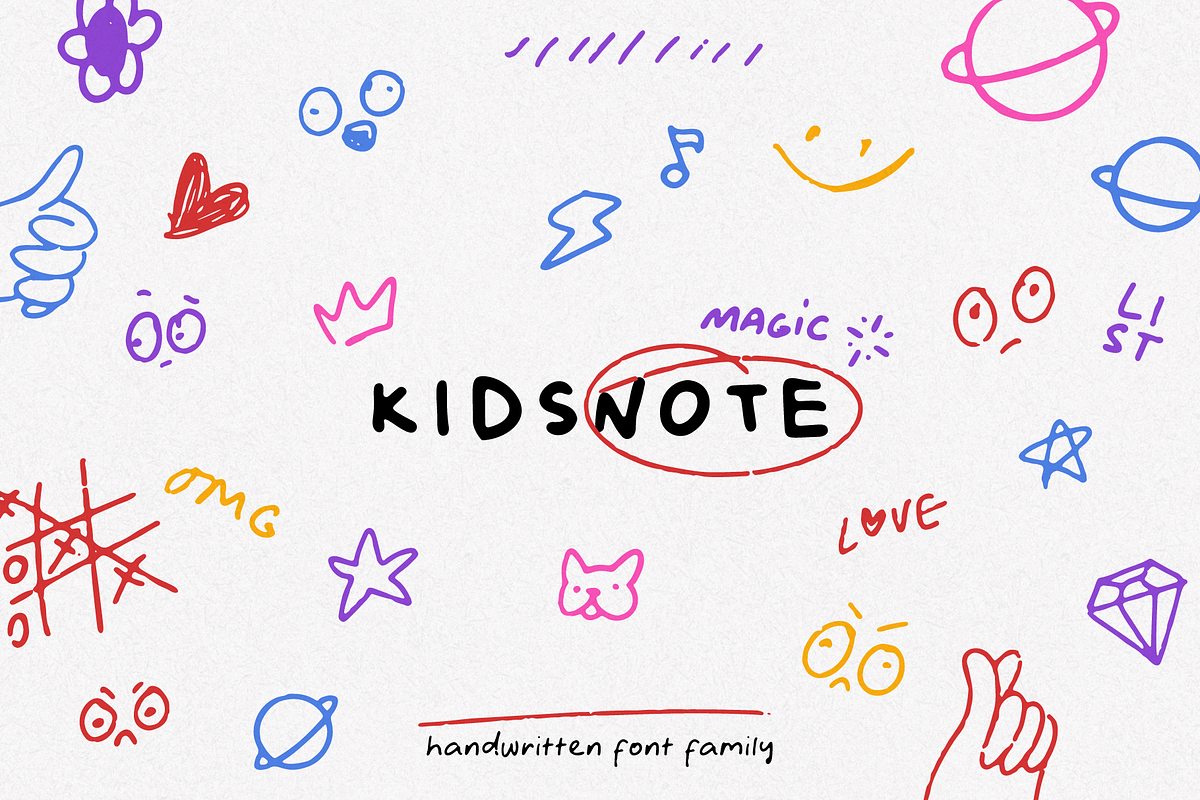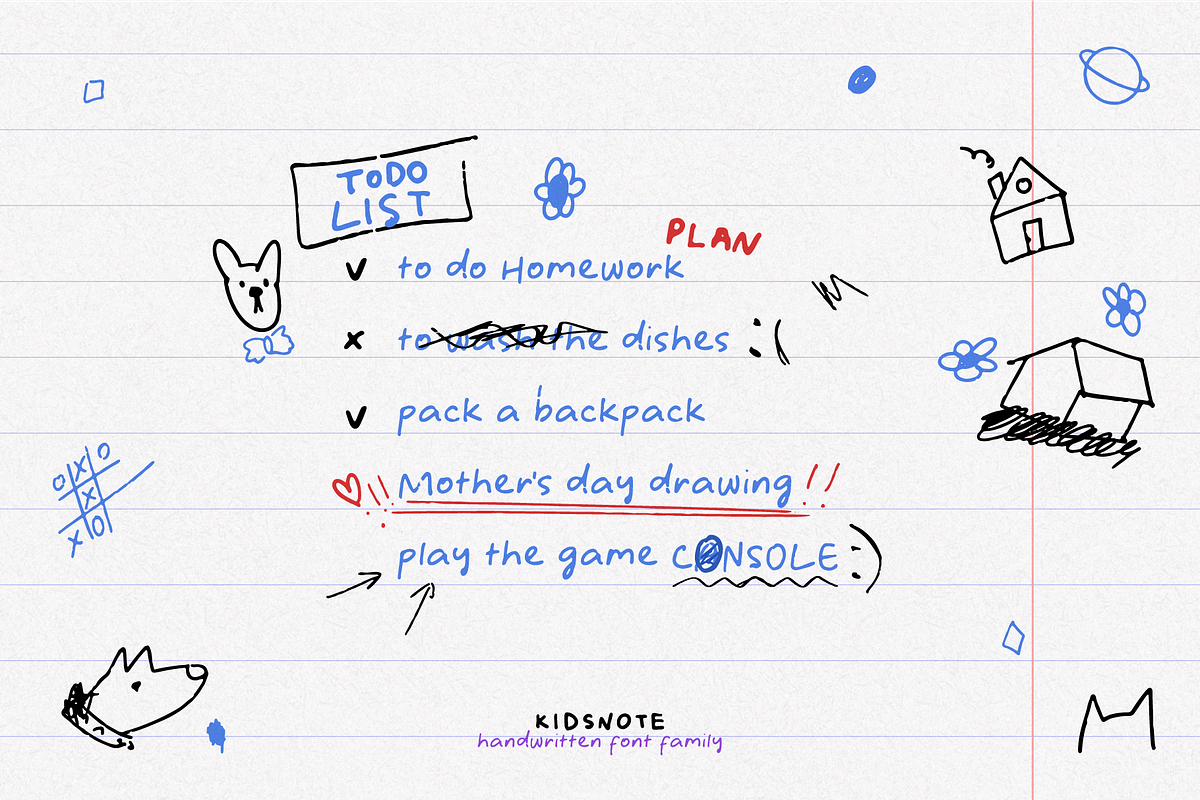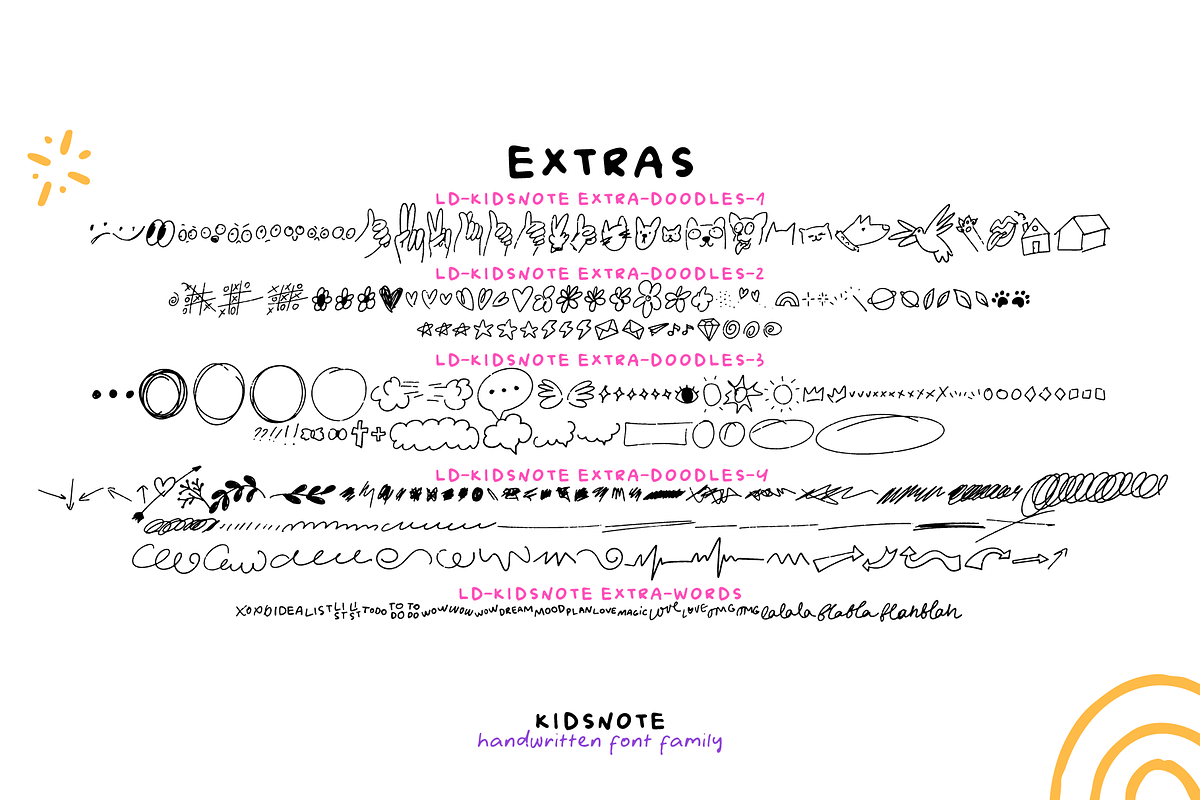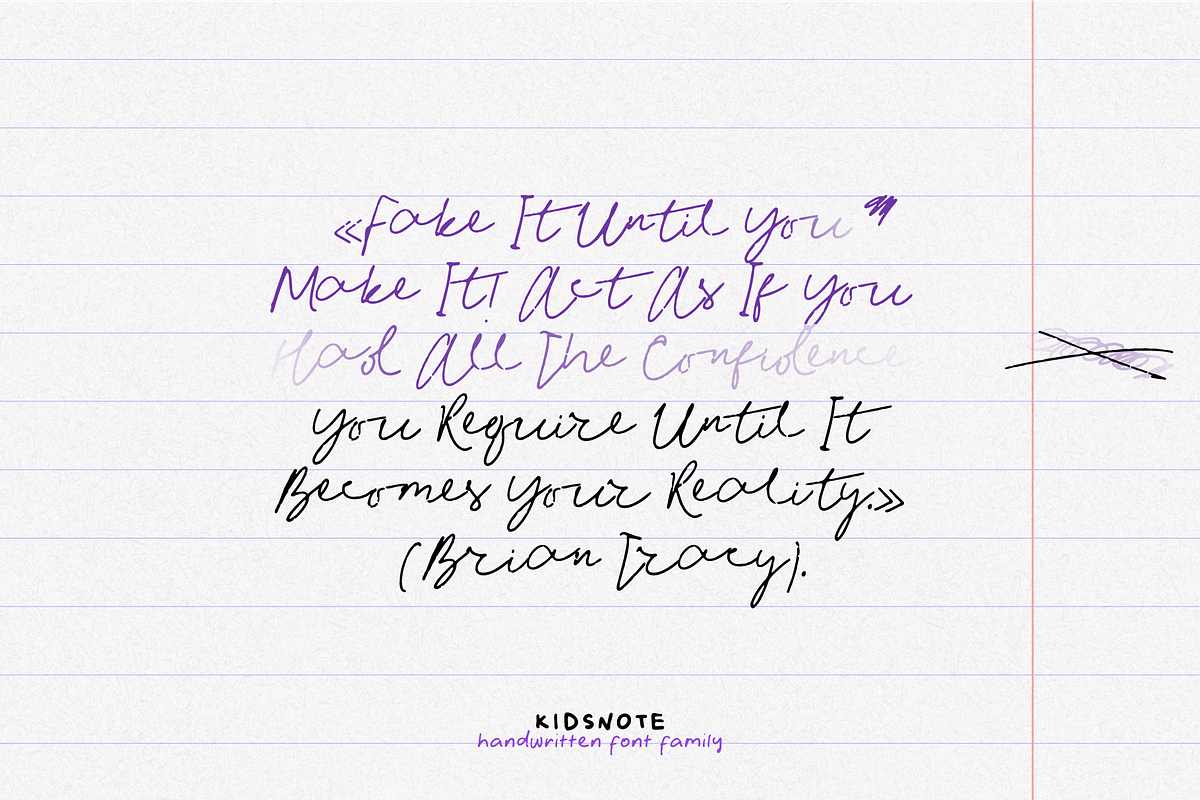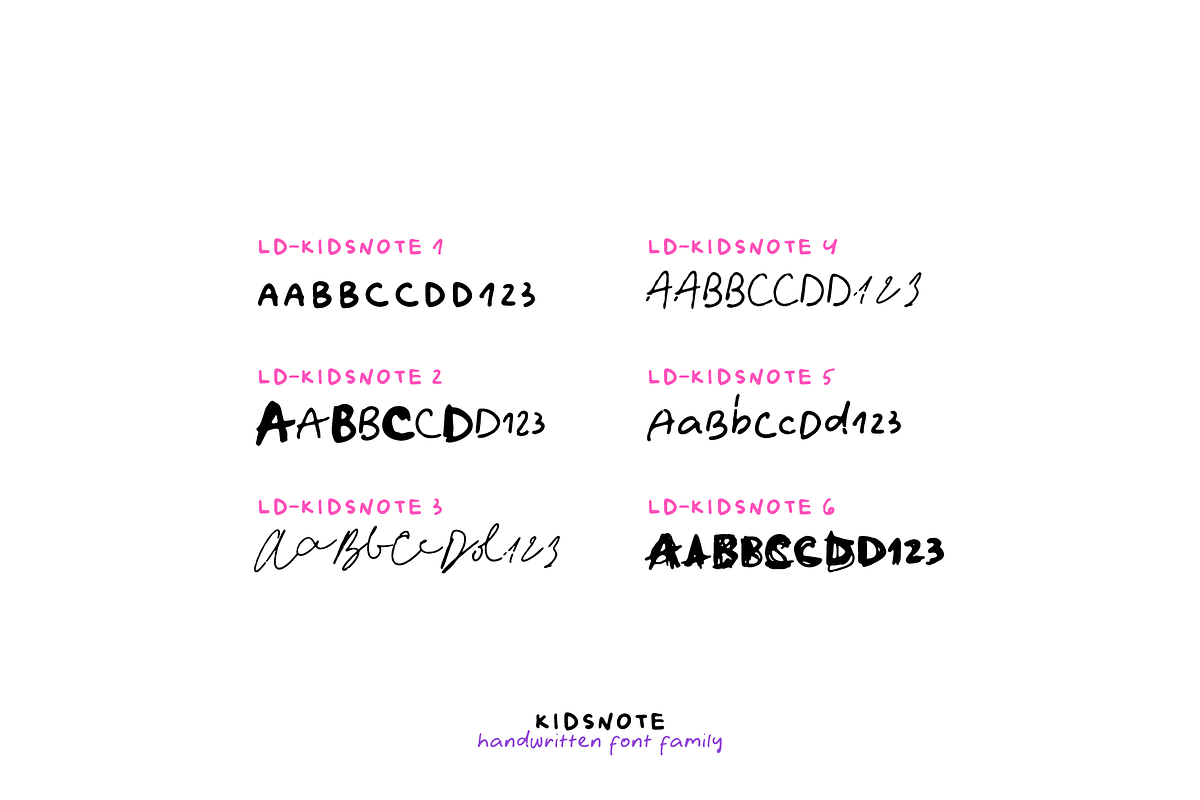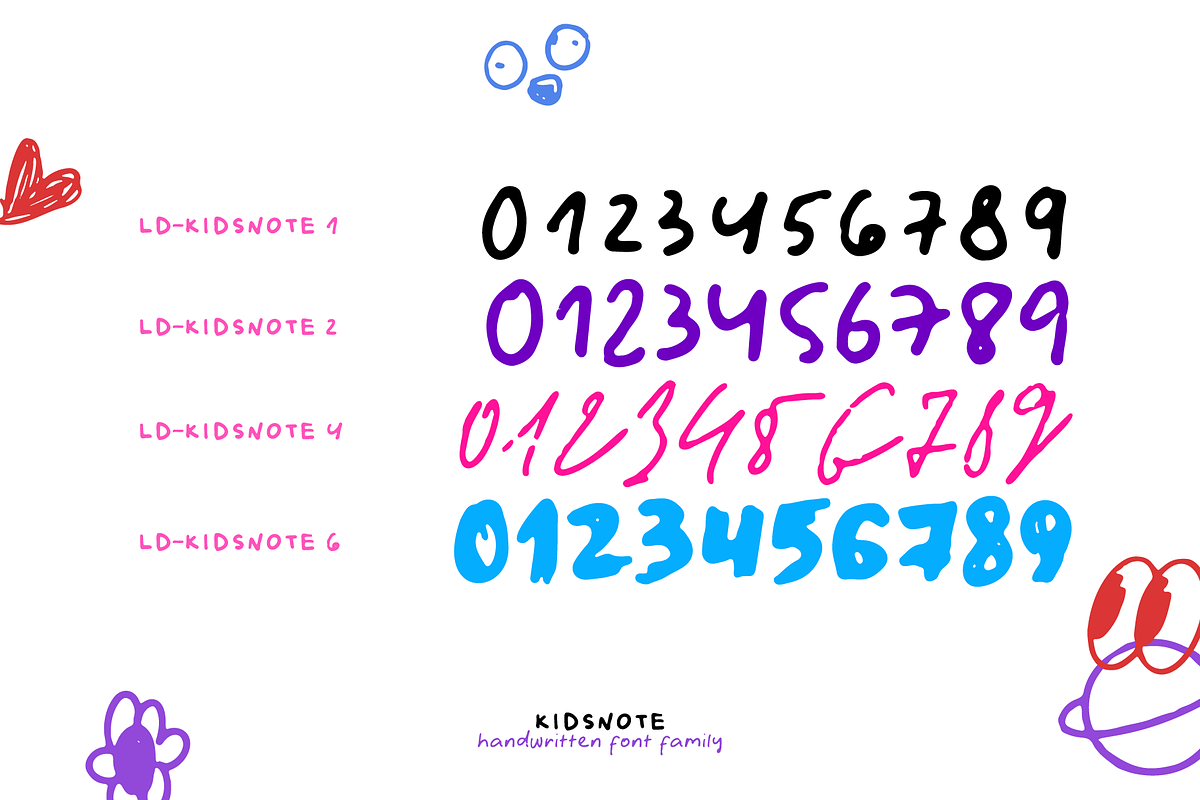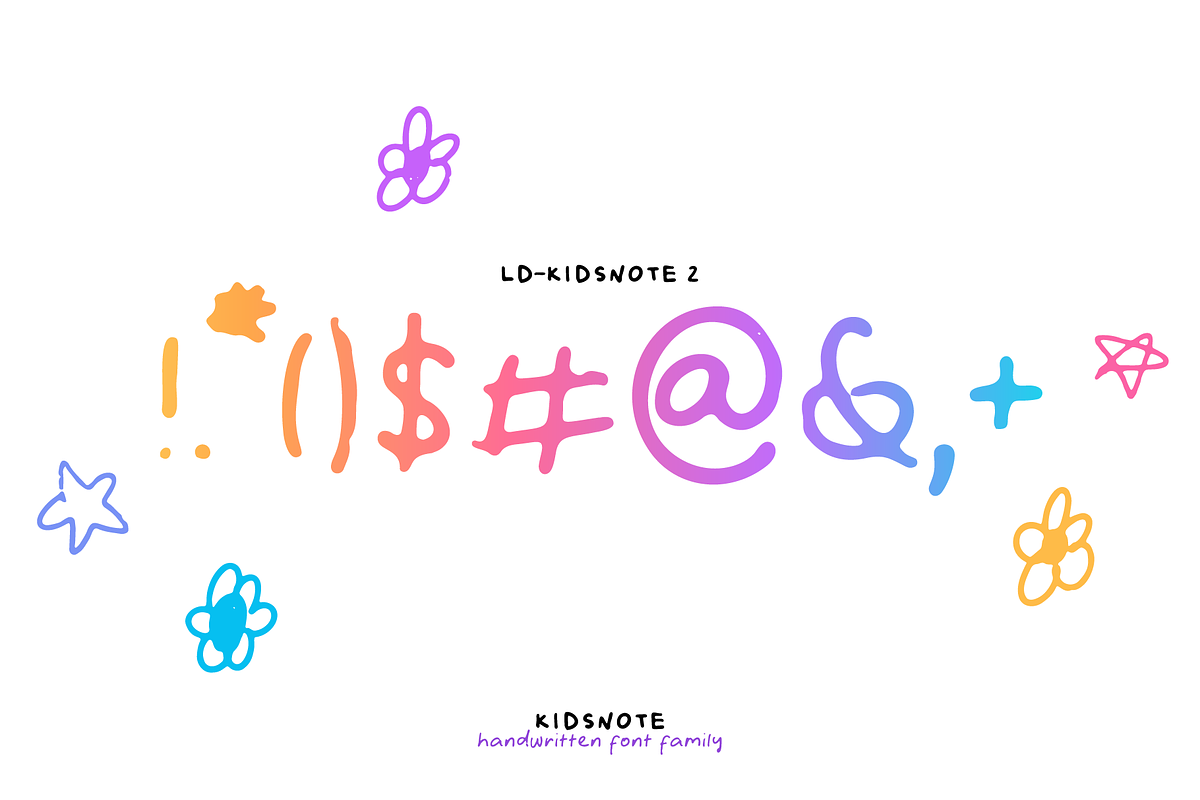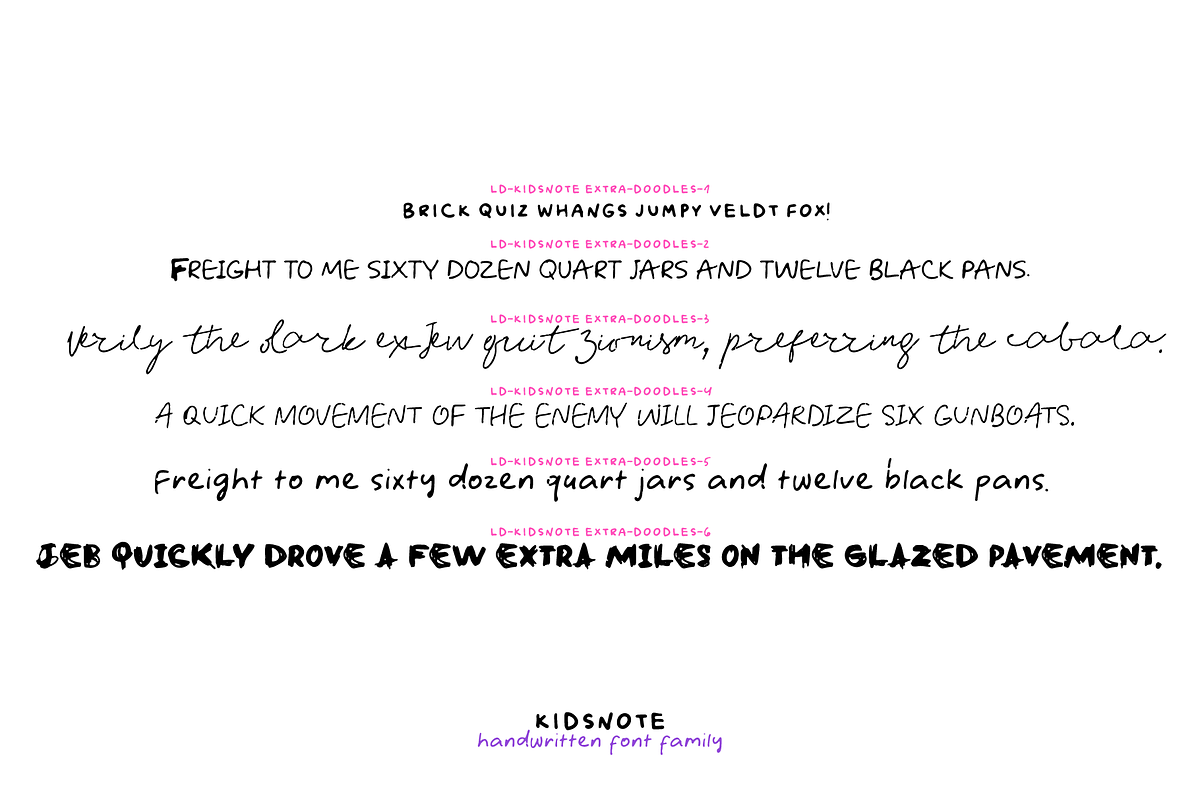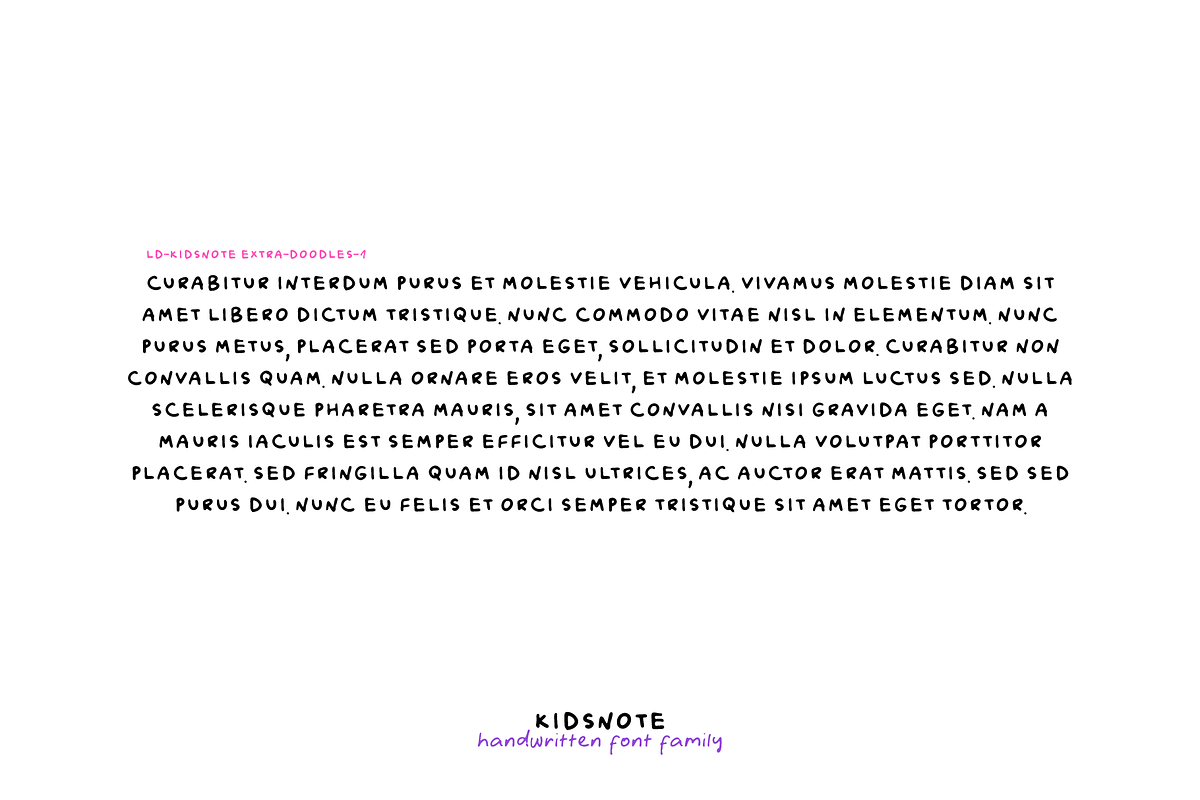
KIDSNOTE. Different Fonts Set +EXTRA
Meet KIDSNOTE, where each letter is like a letter in the margins of the page, written with a ballpoint pen. This dissimilar family of different fonts is framed by the atmosphere of handwritten notes.
From block and cursive letters to underlining and mini-doodles, every typeface captures the feeling of writing with a real pen. Like the pages of a notebook, written in small handwriting. From fat letters to blots, Kidsnote conveys a natural feel. A variety of styles adds richness and depth to your texts.
Set of fonts in a family of mini doodles, underlines, arrows, and more. This décor gives your text a themed feel and brings out the details. This is your journey into the world of handwriting. Use this family of fonts to create unique, real-life inspired texts, greeting cards, children's books, game elements and more. They create an atmosphere of surprise, lightness and joy.
Kidsnote can be both the main element of your design, as well as an additional accent or even a playful commentary. It integrates easily into different styles and emphasizes your individuality.